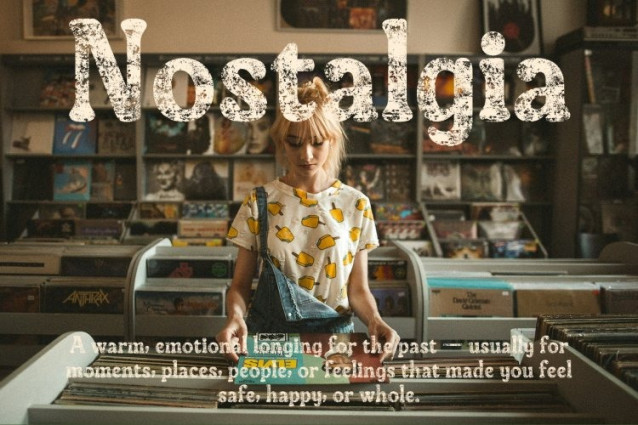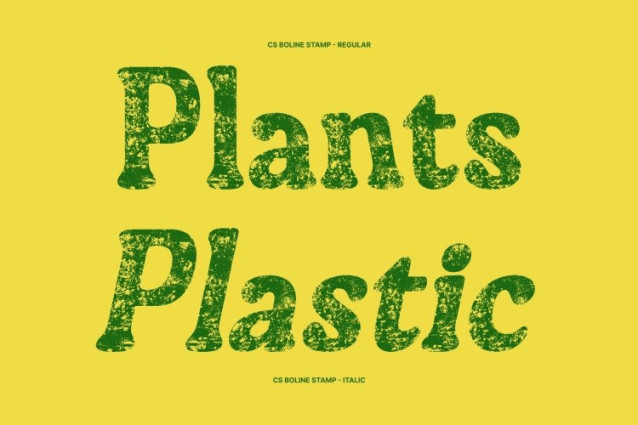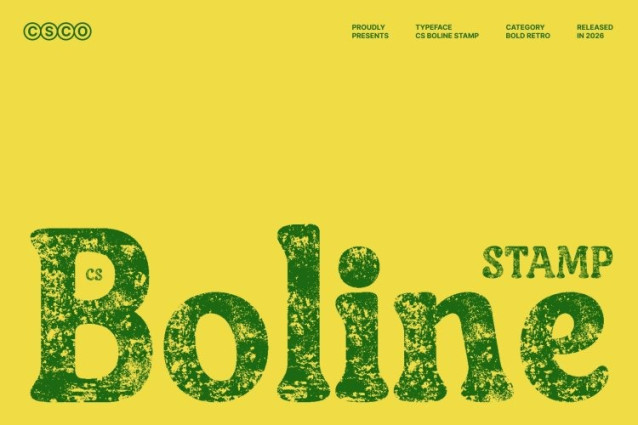
CS Boline Stamp Font
CS Boline Stamp Font This is a bold rounded serif font inspired by the expressive spirit of 90s typography, now elevated with a distinctive stamp effect. Its thick, rounded letterforms deliver strong visual impact, while the stamped texture adds a slightly worn, tactile quality bringing a sense of authenticity, nostalgia, and artistic depth to every character.
Iconic 90s Aesthetic with Retro Texture
The rounded shapes and robust strokes instantly evoke classic 90s design, from pop culture graphics to vintage advertising. The stamp effect enhances this nostalgic feel by introducing subtle imperfections, giving the font an aged, printed look that feels bold, playful, and full of personality. It captures the energy of the era while adding a timeless, handcrafted touch.
Perfect for Retro, Playful, and Statement Designs
This font is ideal for vintage posters, bold logos, product packaging, apparel graphics, and throwback branding projects. Its strong presence ensures excellent visibility, while the textured finish adds character and emotional appeal making designs feel expressive, fun, and memorable.
Versatile Boldness with Expressive Personality
Whether used for headlines, branding, or standout display typography, delivers a powerful retro voice. Its combination of rounded bold forms and vintage stamp texture makes it perfect for designers seeking a font that feels nostalgic yet energetic, playful yet impactful—bringing unmistakable 90s charm to modern creative work.